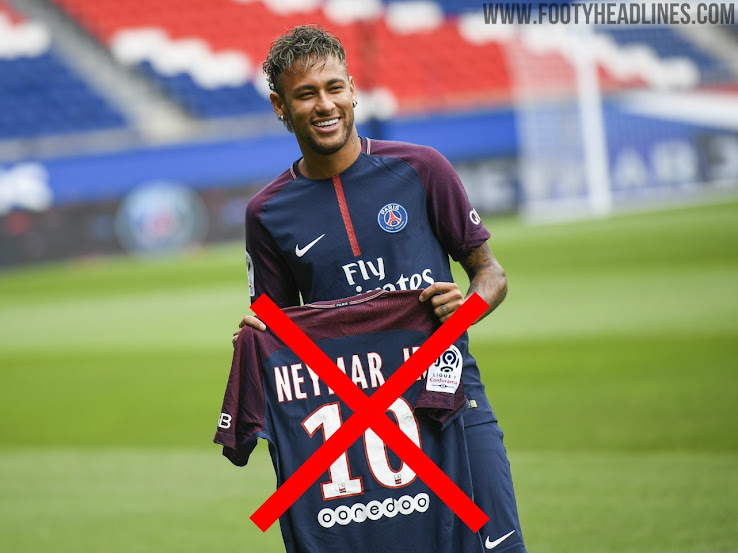
LEAKED: Ligue 1 Teams to Have 3 Different Fonts to Choose From Next Season
Up until now, all teams in France's top two divisions used a league-wide font with minimal customization options.
In spite of the current trend, which has seen La Liga and Serie A introducing global fonts recently, this is going to change next season as per our good friend @lasource75006.
From the start of the 2020-21 season, teams in France's top three divisions (Ligue 1, Ligue 2 and Championnat National) will have the choice of three different, league-designed fonts.
Everything indicates that the previous Ligue 1 font design, which has been in use for a very long time, will not be among the options.
Teams have been asked by the league to submit their choice before the start of the campaign - and they will have to use the selected style throughout the season.
Albeit not confirmed, we expect the current model remain in place - unlike in the Premier League, where there are only a handful of color options, teams in France have been free to choose custom colors for the main part and border of the font. It's also been possible for teams to add a subtle pattern inside the font, as seen with PSG recently, for example.
There are no pictures of the new Ligue 1 2020-21 font yet, but we'll update this post as soon as we have more info and details.